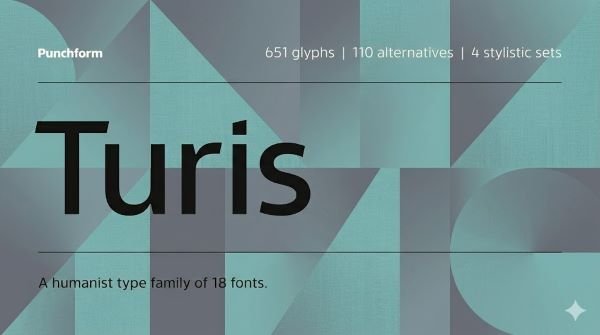
Turis Font by Punchform is a humanist sans-serif that strikes a rare balance between warmth and refinement. Its clean, well-proportioned letterforms never feel cold or mechanical — a clean font that transitions naturally from editorial body copy to brand identity work without losing an ounce of its contemporary elegance.
Style: Sans Serif, Humanist, Grotesque, Modern